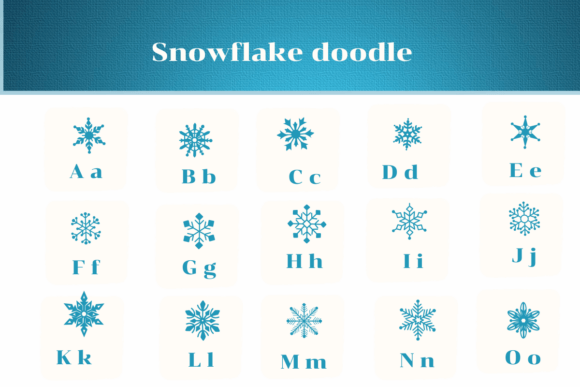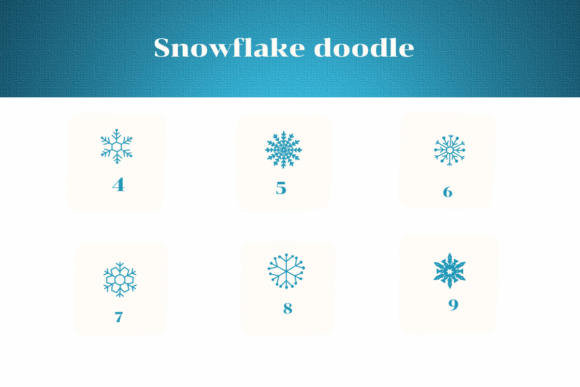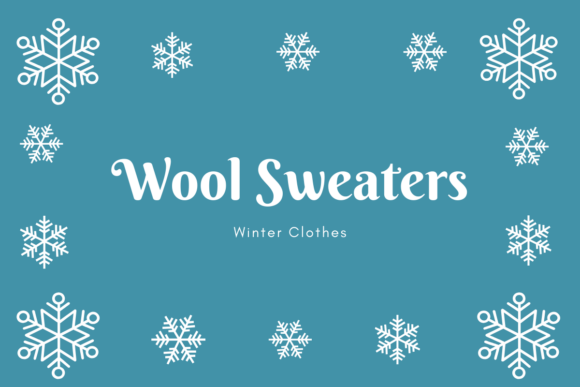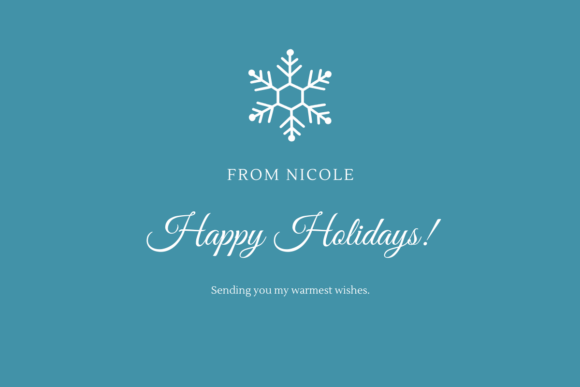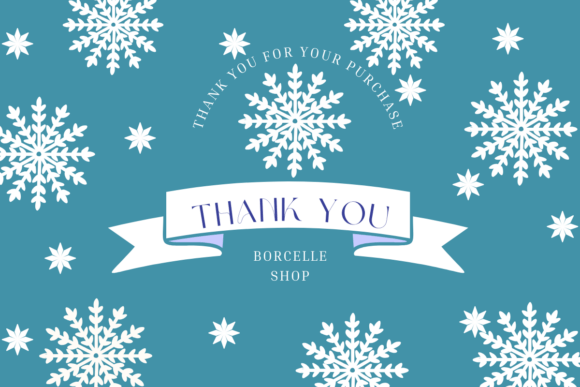
Introduction to Snowflake Doodle Font
As a designer, there’s nothing quite like the thrill of brainstorming ideas for a new project. You’re sipping your morning coffee, scrolling through Pinterest, and suddenly, a spark of inspiration hits – you want to create a festive and whimsical design that captures the magic of winter. If you’re anything like me, you’re always on the lookout for the perfect design resource to bring your creative vision to life.
That’s where the Snowflake Doodle Font comes in – a delightful and versatile dingbats font that’s sure to add a touch of wonder to your next project. With its high-quality design and transparent background, this font is a must-have for any designer looking to create eye-catching and unique graphics.
Whether you’re working on a holiday card, a social media campaign, or a special event invitation, the Snowflake Doodle Font is a valuable addition to your design arsenal. And the best part? It’s available for a free download, making it accessible to designers of all levels.
Key Features of Snowflake Doodle Font
- Unique, hand-drawn design with intricate details, perfect for creative projects that require a touch of whimsy.
- Perfect for designers looking for a distinctive and creative design resource that adds a personal touch to their work.
Honest Review: Snowflake Doodle Font
I recently stumbled upon the Snowflake Doodle Font, and I must say it’s a lovely addition to any design project. This free download offers a high quality, delicate design that’s perfect for creative projects that require a touch of whimsy.
What works well: ✨ The Snowflake Doodle Font is incredibly versatile, and its transparent background makes it easy to combine with other design elements. I also appreciate the detailed, hand-drawn style that adds a personal touch to any project.
- Delicate, detailed design
- High quality for crisp, clear print
However, there are a few limitations: ⚠️ The font is limited to uppercase and lowercase letters, which may not be ideal for projects that require extensive text. Additionally, the design can be a bit delicate, which may not be suitable for bold or eye-catching projects.
Overall, I’m impressed with the Snowflake Doodle Font. While it may not be the most versatile font, its unique design and high quality make it a great addition to any design resource collection.
For the best results, use the Snowflake Doodle Font on a transparent background to give it a clean and modern look. Experiment with different font sizes and colors to create a unique design. You can also combine the font with other design elements, such as graphics or images, to add depth and interest to your project.
Common Use Cases for Snowflake Doodle Font